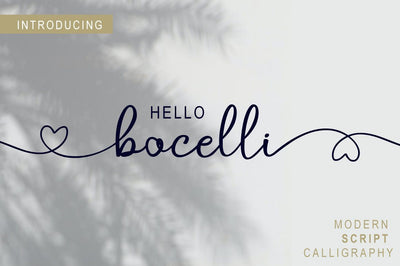
bocelli script
Introducing
bocelli script modern script with a handmade calligraphy style, decorative characters and a dancing baseline! So beautiful on invitation like greeting cards, branding materials, business cards, quotes, posters, and more!!
bocelli script Features :
Uppercase & Lowercase International Languange & Symbols Support Punctuation & Number PUA Unicode Range Standard Ligatures Discretionary Ligatures Stylistic Alternates Stylistic Set 1-13: